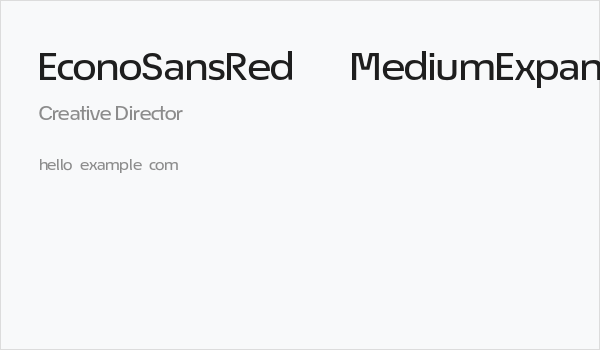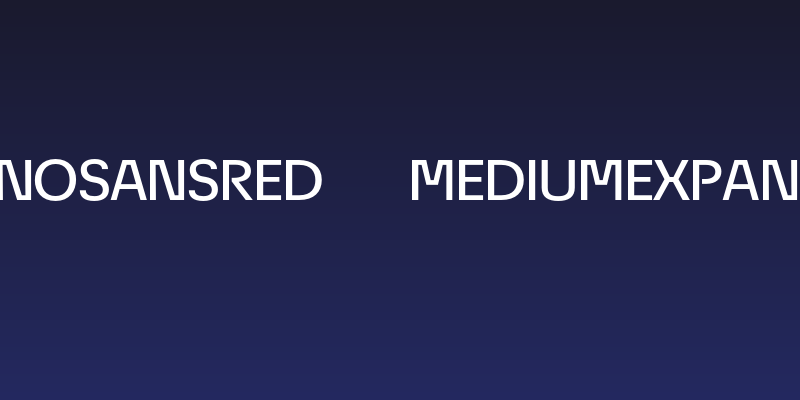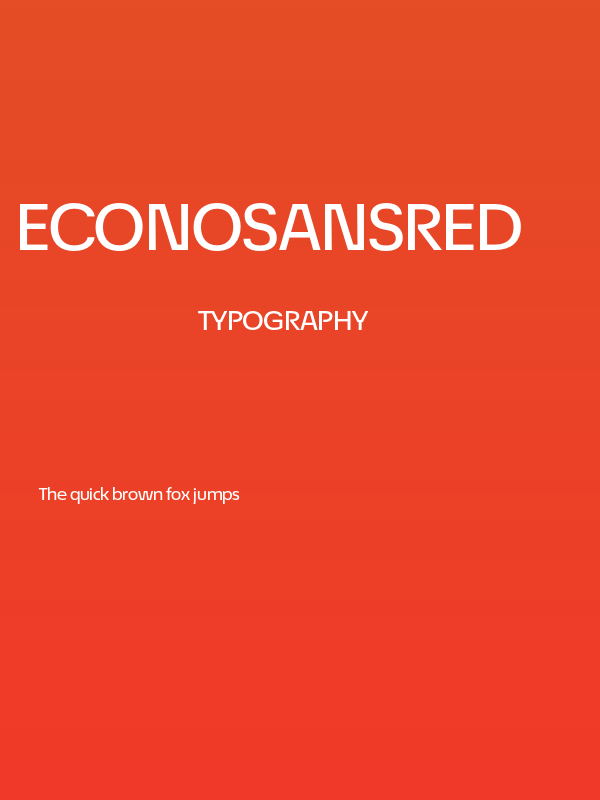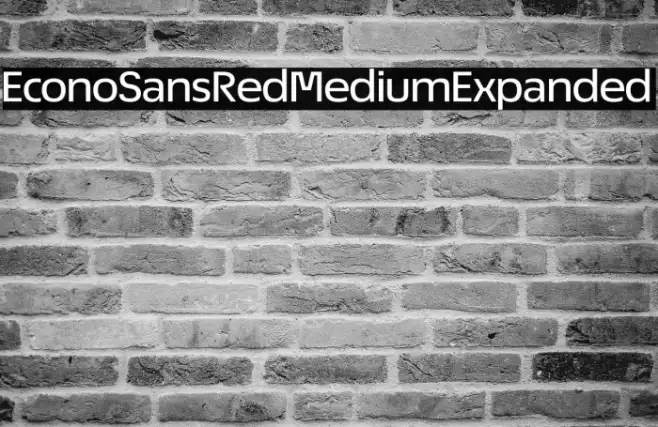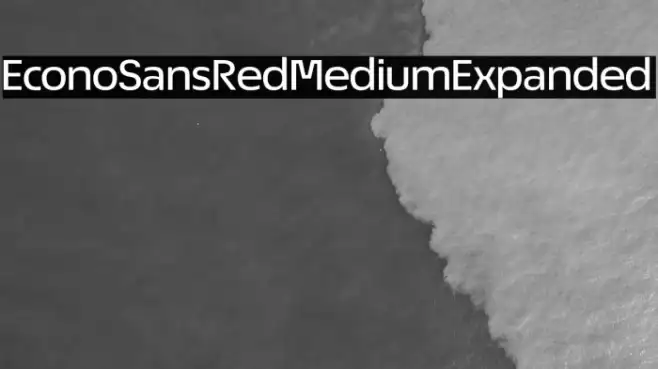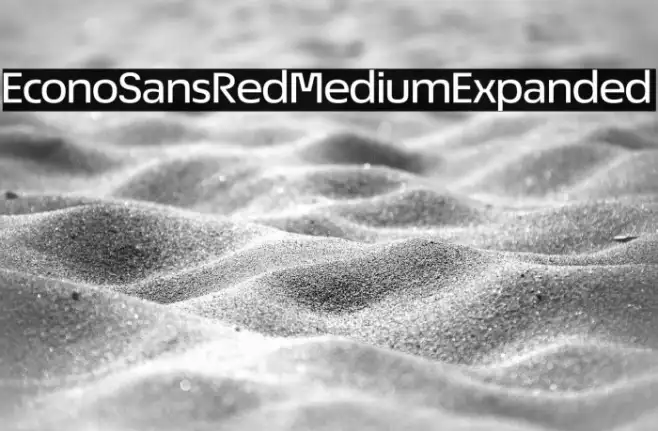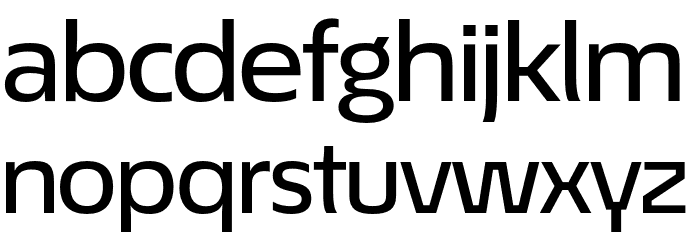
EconoSansRed-63MediumExpanded Font
EconoSansRed-63MediumExpanded Description
This typeface features a clean and modern sans-serif design, characterized by its medium weight and expanded width. The characters are well-balanced with a uniform stroke width, providing a harmonious and professional appearance. The uppercase letters are bold and assertive, while the lowercase letters maintain a consistent and approachable look. The numerals are clear and easy to read, making them suitable for various applications. The special characters are distinct and integrate seamlessly with the overall style, enhancing the font's versatility.
| Proposed Projects | Ideal for corporate branding, digital interfaces, advertising materials, and editorial design. |